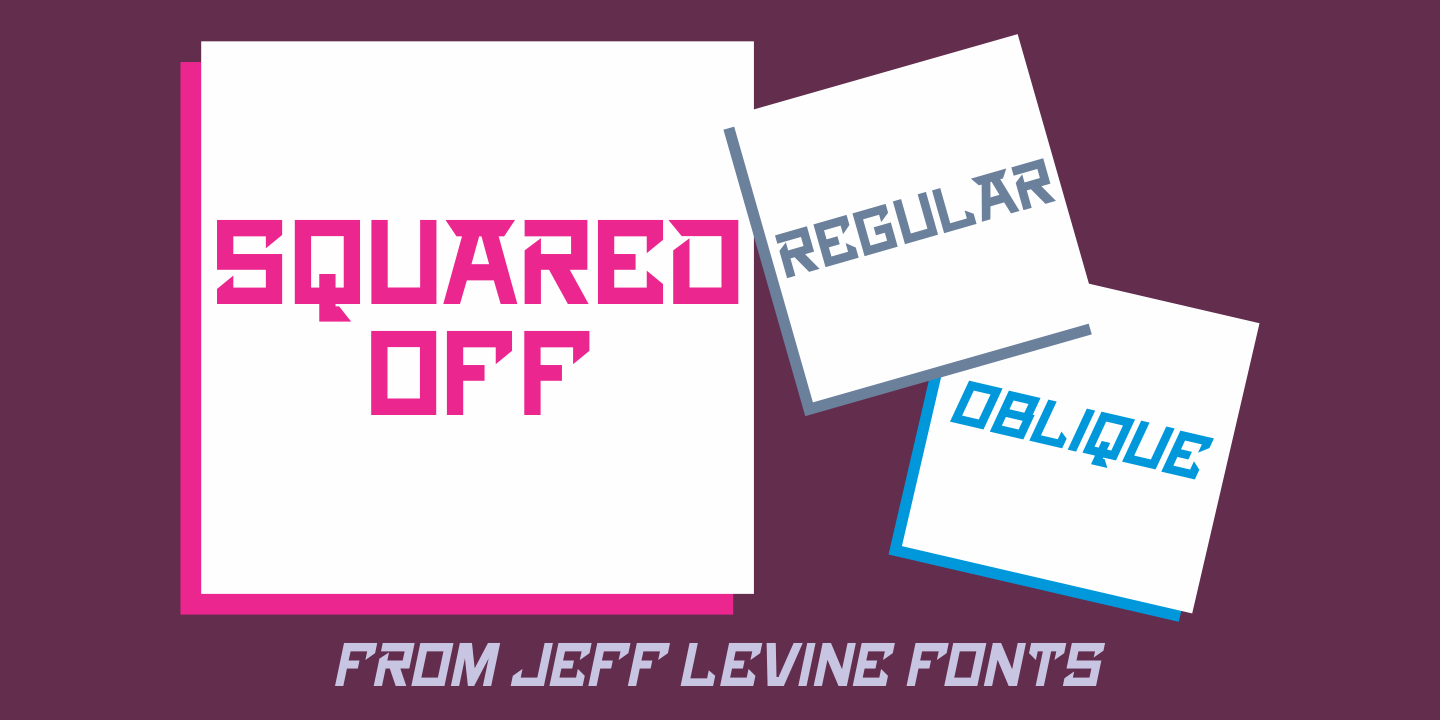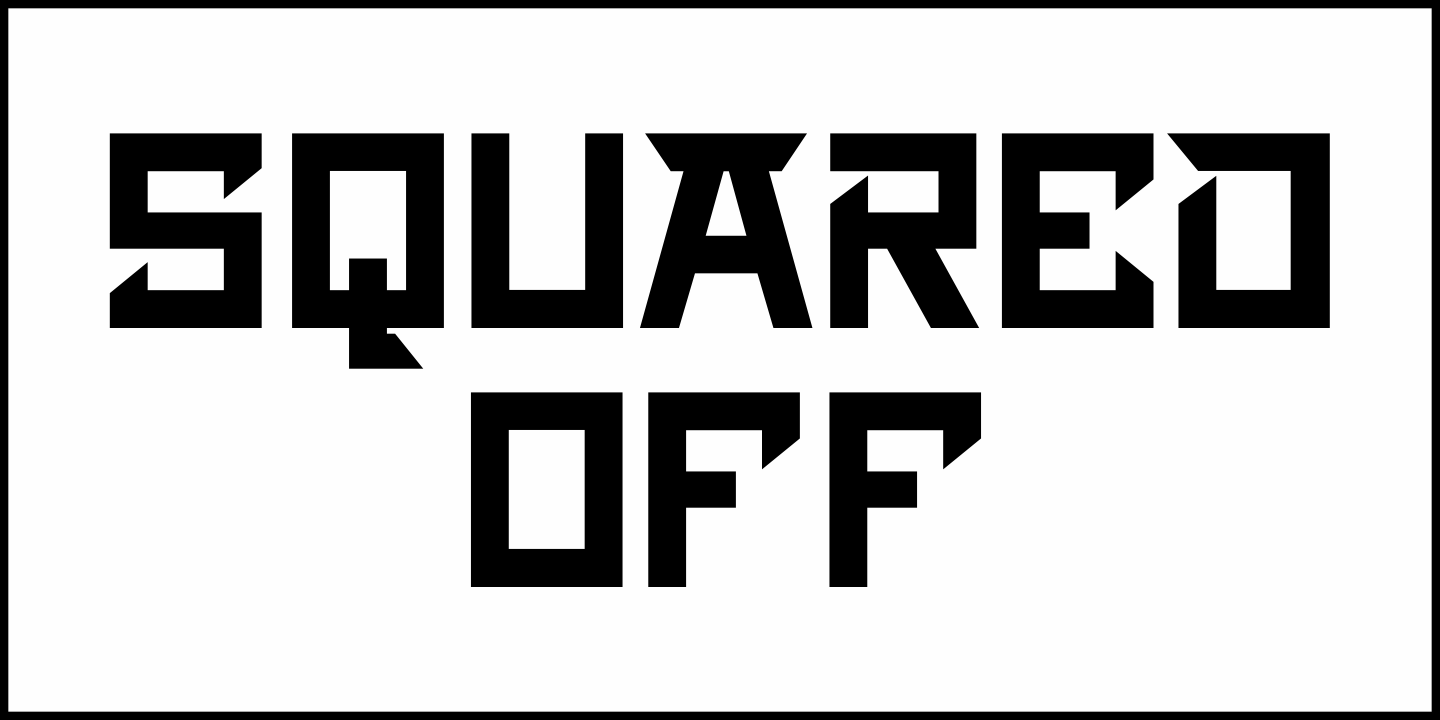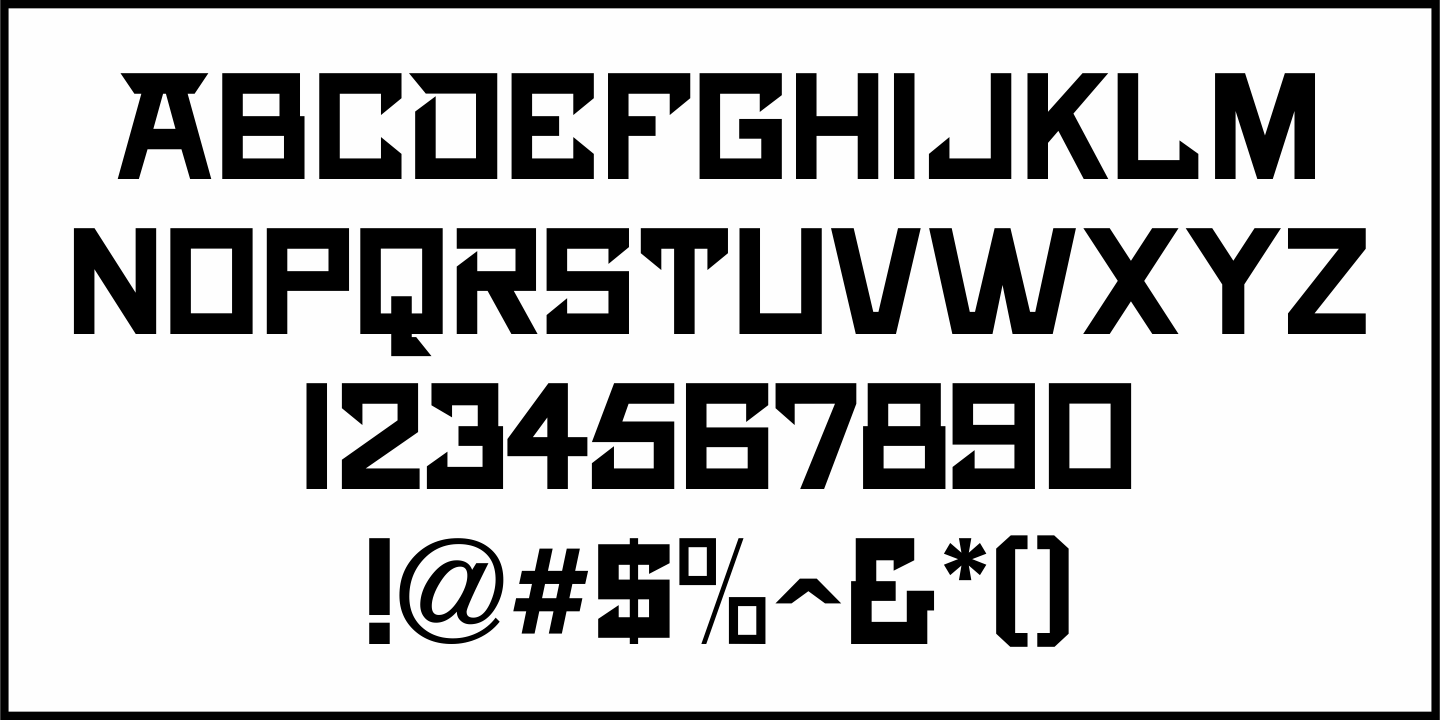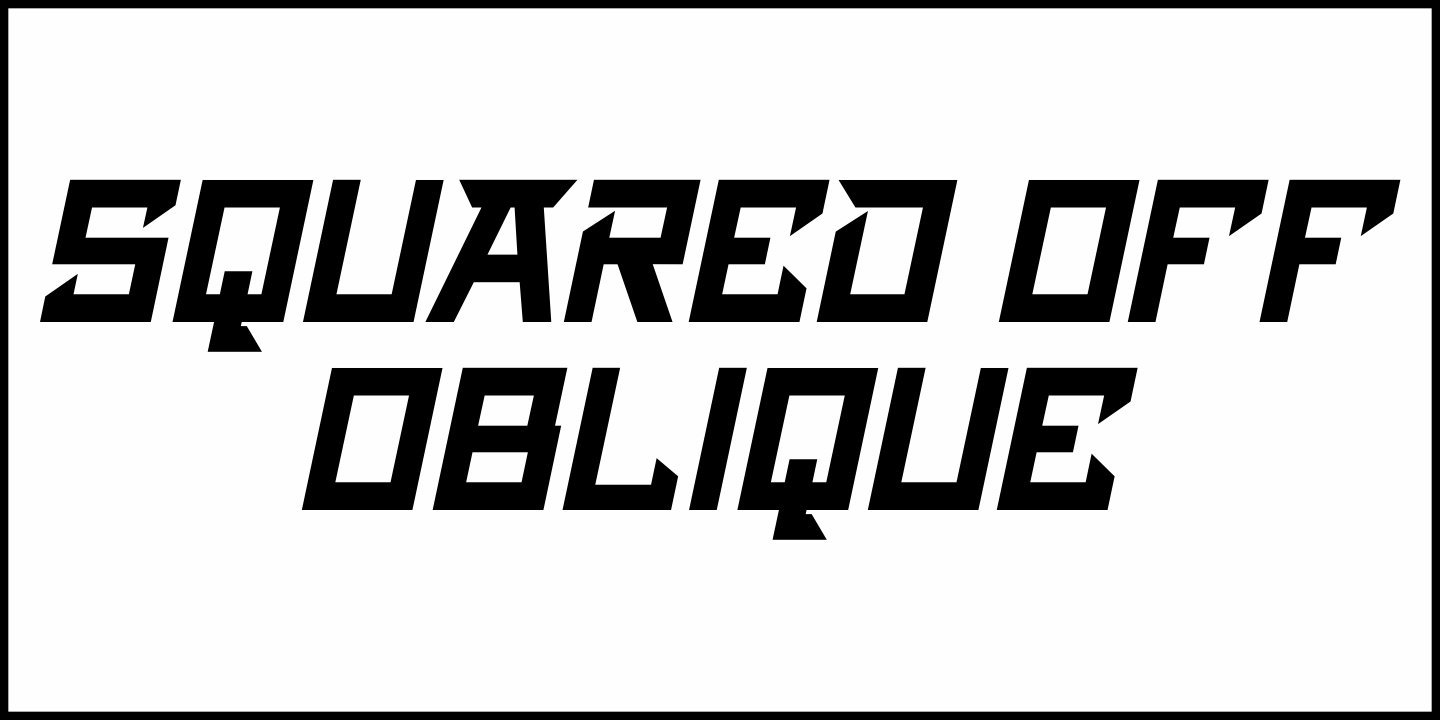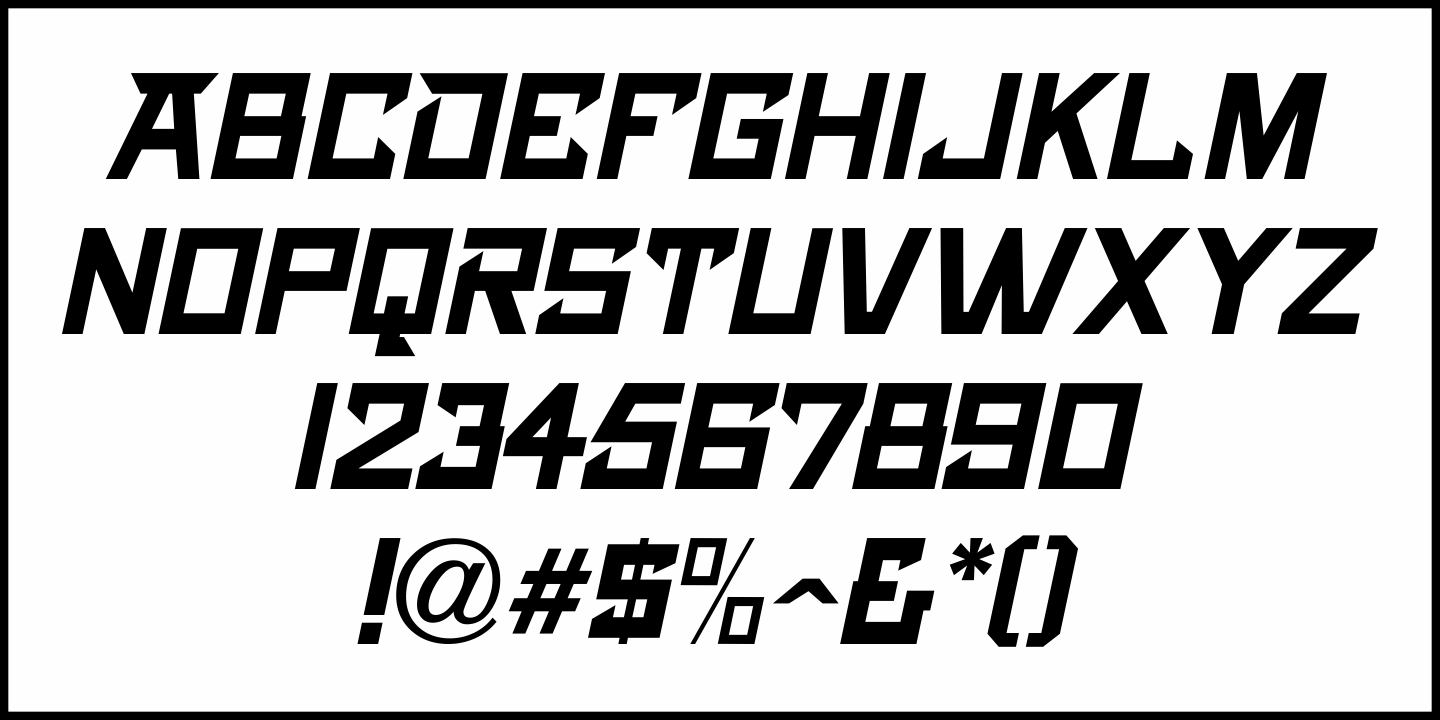
Squared Off
In an 1896 specimen catalog for American Type Founders there is a design called Geometric Gothic. The lettering style looks as if it's ahead of its time; foreseeing the 1980s.
With its squared characters, some pointed overhangs and modified character shapes, this type design is now available as Squared Off JNL, in both regular and oblique versions.